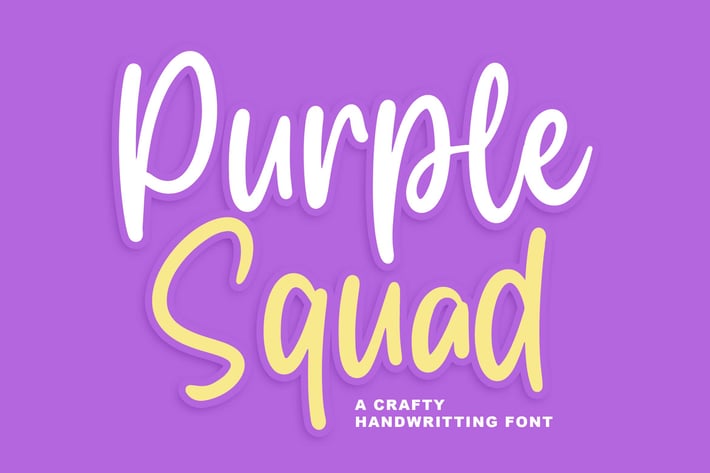
Purple Squad a Playful Handrwriting Font
Hello, awesome people! This time, we have a new font called Purple Squad a Playful Handrwriting Font by Blankids Studio.
Purple Squad a Playful Handrwriting Font is made for any professional project branding, such as logotype, watermarks, poster, branding, promotions, product packaging, etc. Every letter has a feminine and girly style design.
Purple Squad Font includes a full set of feminine uppercase and lowercase letters, numerals and punctuation. This font has a sporty style. See the previews above to get some inspiration on how to use them. Happy designing!